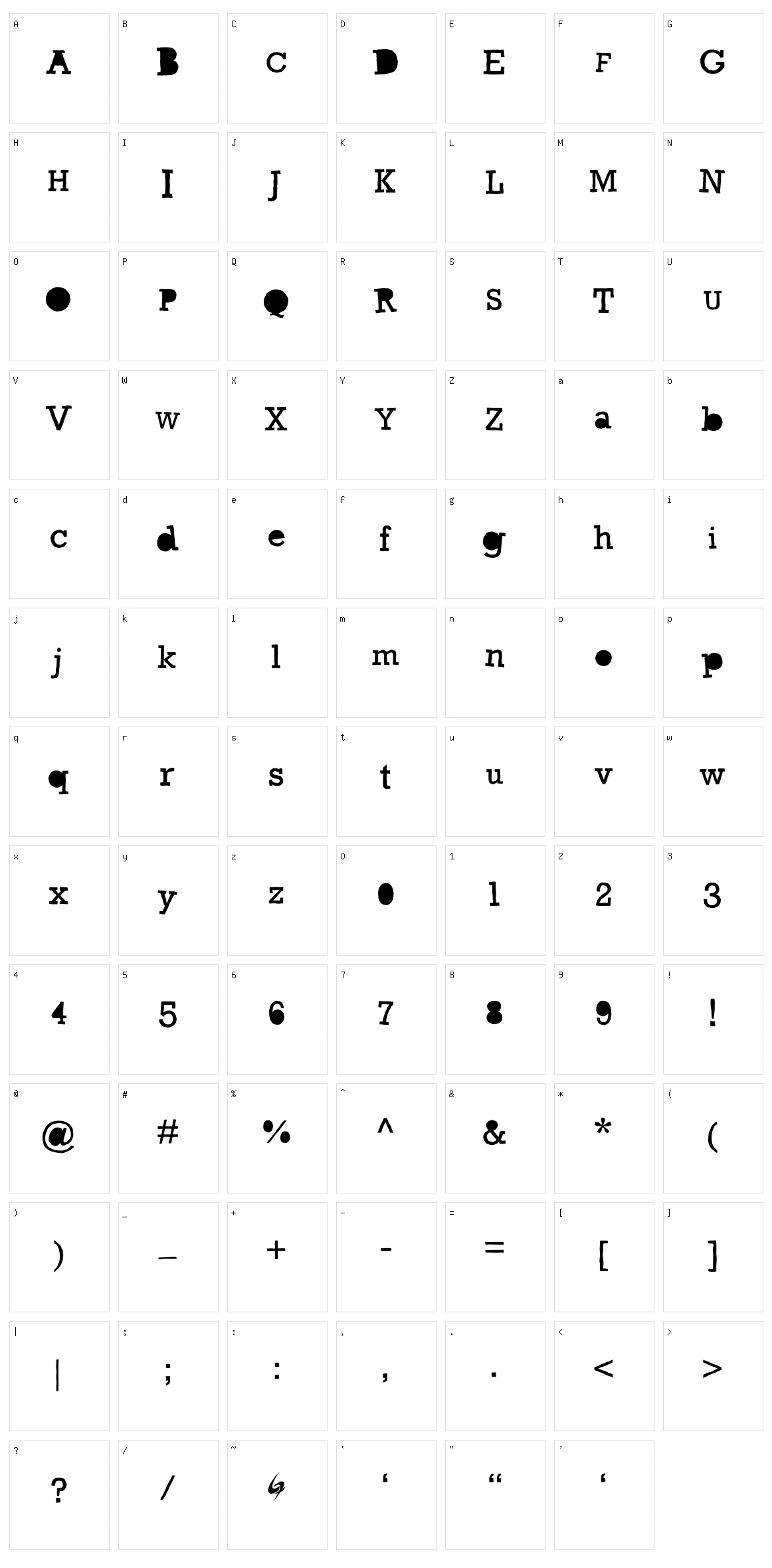
Gycentium Goespop.ttf is a pop style of Rockwell(typeface).
Addapted from Rockwell(typeface) which was designed at the Monotype foundry's in-house design studio in 1934.
This font is made as a tribute to Gycentium Credas Disorator, 15th generation of MAN ICS.